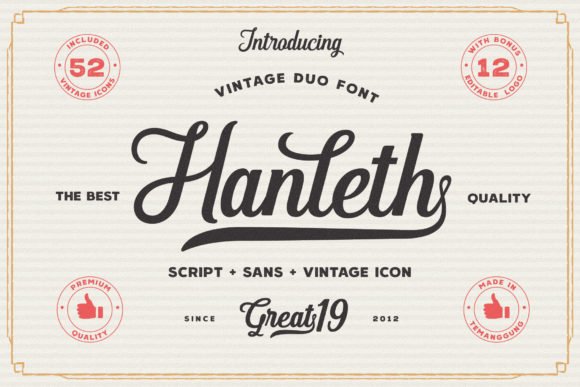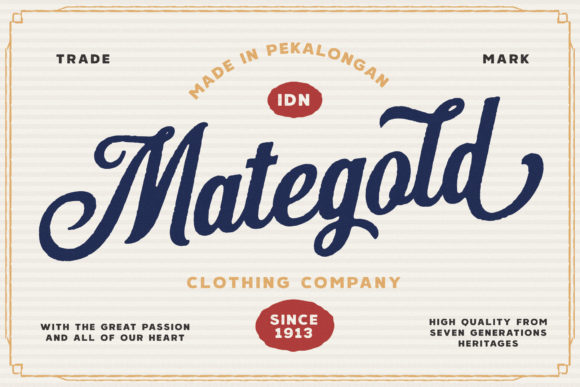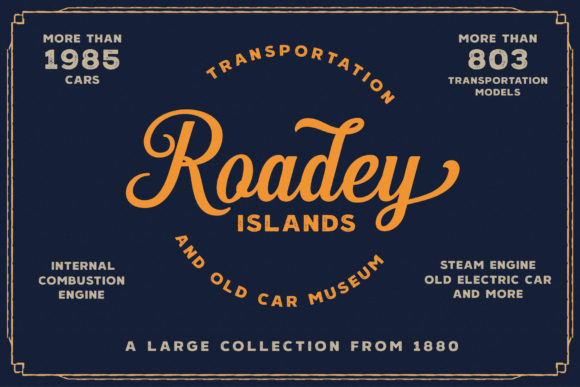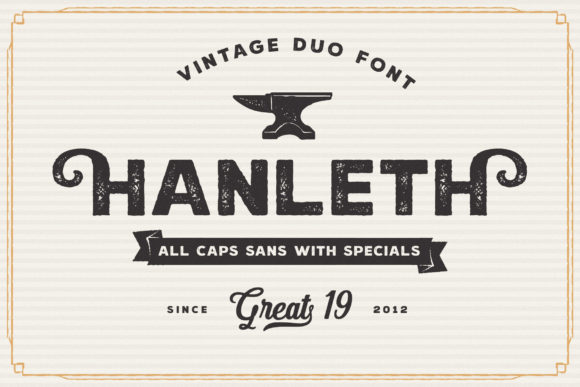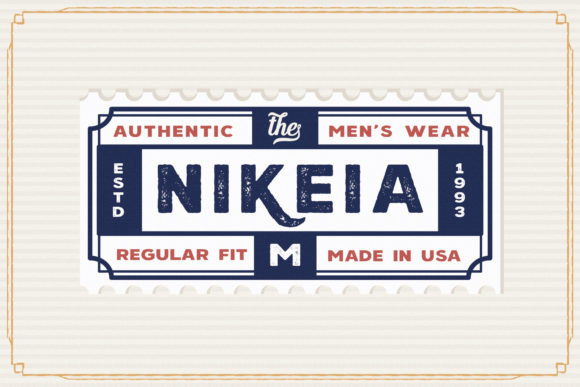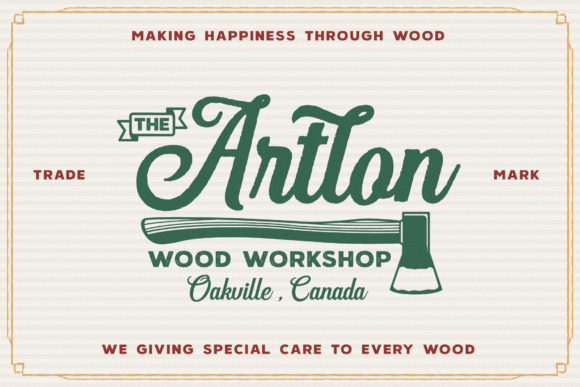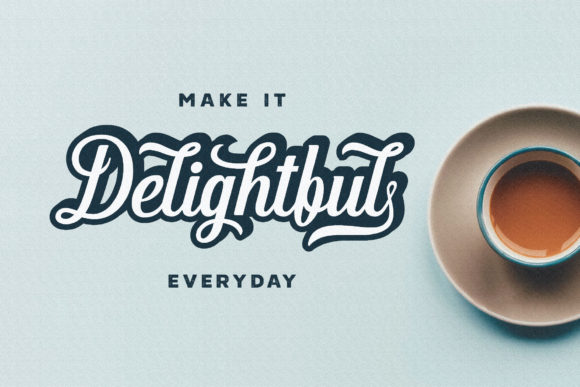
The Perfect Script Font for Your Next Design Project
Have you ever stared at a blank page, waiting for the perfect font to come along and spark your creativity? For designers, finding that elusive font can be a game-changer. It’s like stumbling upon a hidden treasure that elevates your entire project and leaves a lasting impression.
Enter the Hanleth Family Font, a stunning script font that’s sure to captivate your audience. With its beautiful feel and unique charm, Hanleth Family Font is the perfect addition to any design project. Whether you’re working on a logo, brochure, or social media campaign, this font is sure to bring your vision to life. As a valuable resource for designers, Hanleth Family Font offers a level of sophistication and elegance that’s hard to find elsewhere.
Hanleth Family Font Key Features
- Font Family: Hanleth, Hanleth Italic, Hanleth Bold, Hanleth Bold Italic
- Unique Characteristics: Elegant, modern design with a unique blend of geometric and organic elements
Hanleth Family Font Review
Overall, I’m quite impressed with the Hanleth Family Font. It has a unique charm and offers a wide range of styles to suit various design needs. ✨ I particularly like the elegant and refined feel it brings to any project.
- Wide range of styles: The Hanleth Family Font comes in various weights and styles, making it a great choice for designers who want to add some visual interest to their work.
- Unique charm: The font’s distinctiveness sets it apart from more common fonts and adds a touch of sophistication to any design.
- High-quality rendering: The font renders well in both digital and print formats, making it a reliable choice for designers who need to produce high-quality work.
However, there are a few limitations to consider. ⚠️ The font may not be suitable for use in very small sizes, as it can become difficult to read. Additionally, some of the more ornate styles may not be compatible with all operating systems or software.
Overall, I’m impressed with the Hanleth Family Font and would recommend it to designers who want to add a touch of elegance and sophistication to their work. With its wide range of styles and high-quality rendering, it’s a great choice for any design project.
The Hanleth Family Font is ideal for use in titles, headings, and body text where a classic, elegant feel is desired.
For best results, pair the Hanleth Family Font with a clean, simple design and use it in conjunction with other classic fonts.
The Hanleth Family Font is commonly used in:
2. Business cards and letterheads.
3. Branding and marketing materials.
4. Historical and vintage-themed designs.
Alternatives to Hanleth Family Font
Playfair Display is an elegant, high-end serif font ideal for luxury branding, high-end fashion, and sophisticated designs. It features intricate details and ornate flourishes, making it perfect for creating a sense of opulence and refinement.
Compared to Hanleth Family Font, Playfair Display is more ornate and luxurious, with a more dramatic flair. While Hanleth Family Font is versatile and suitable for various designs, Playfair Display is better suited for high-end projects that require a touch of sophistication.
Lato is a modern sans-serif font that is highly legible and versatile. It’s perfect for corporate branding, web design, and editorial content. Lato features a clean and minimalist design, making it easy to read and use in a variety of contexts.
Compared to Hanleth Family Font, Lato is more modern and minimalist, with a clean and simple design. While Hanleth Family Font has a more classic feel, Lato is better suited for contemporary designs that require a fresh and modern look.